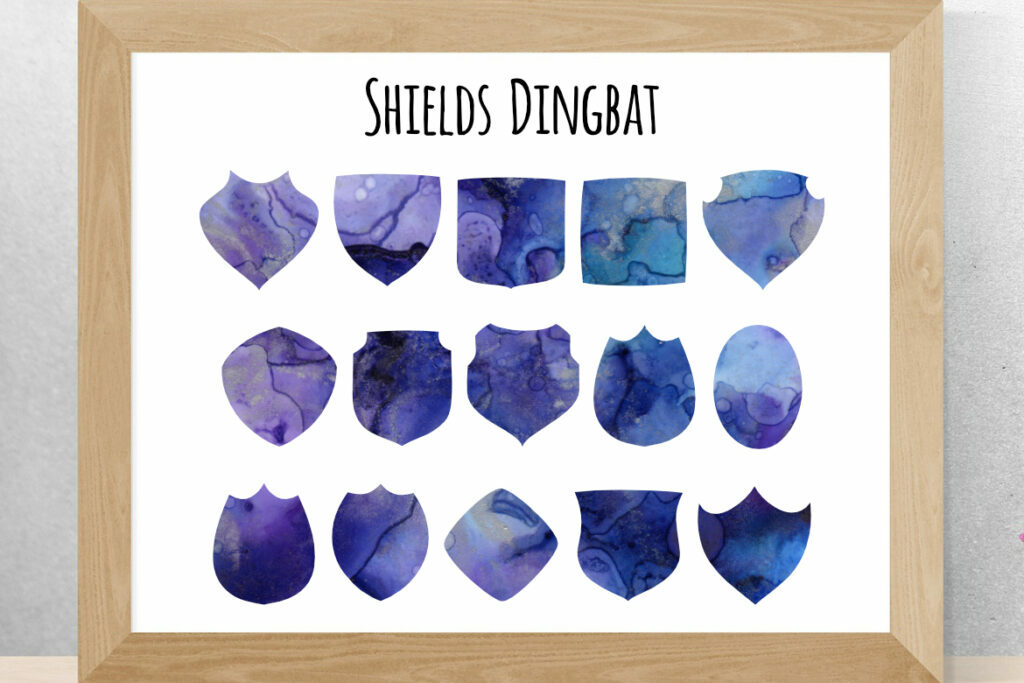
Shields Dingbat Font
About Shields Dingbat Font
Introducing Shields Dingbat Font: Adding a Touch of Fun and Style to Your Designs!
Are you looking for a way to add a touch of whimsy and style to your designs? Look no further than the Shields Dingbat Font! This cute and fun dingbat set is perfect for anchoring your designs in stunning and well-crafted design assets.
The Shields Dingbat Font features a collection of adorable shield illustrations, each with its own unique design and character. From classic medieval shields to modern and stylized variations, this font offers a wide range of options to choose from. Whether you’re working on a logo, poster, invitation, or any other design project, these shields can instantly elevate your work and make it stand out.
The beauty of using a dingbat font like Shields is the ease of use. Simply select the desired shield character from the font and insert it into your design. You can resize, rotate, and customize the shields to fit your specific needs, allowing for endless creative possibilities.
These shields are not only cute and fun, but they also add a sense of playfulness and charm to your designs. They can be used to create borders, frames, decorative elements, or even as standalone icons. The versatility of this dingbat set ensures that you’ll find the perfect shield to suit any project or theme.
Whether you’re designing for a children’s book, a fantasy-themed event, or simply want to add a touch of whimsy to your brand identity, Shields Dingbat Font is the perfect tool. Its cute and fun design elements will captivate your audience and leave a lasting impression.
So why wait? Give your designs a boost of creativity and charm with the Shields Dingbat Font. It’s time to anchor your designs in stunning and well-crafted design assets that will make them truly stand out. Let your imagination run wild and create eye-catching visuals that delight and inspire.